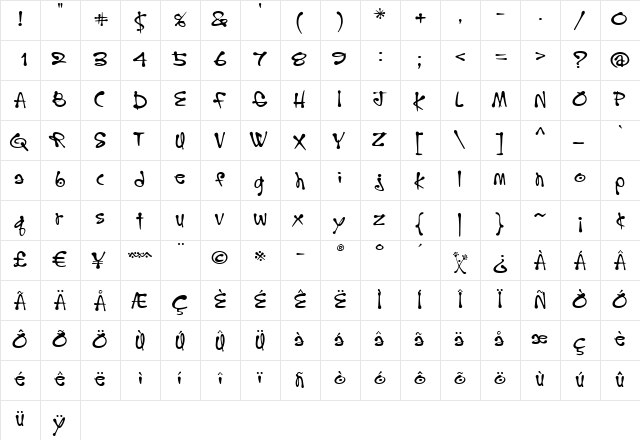
Hoopla Medium
Design Context for Hoopla Typeface
Hoopla is a composed and adaptable typeface that performs quietly and consistently across a wide range of design contexts.